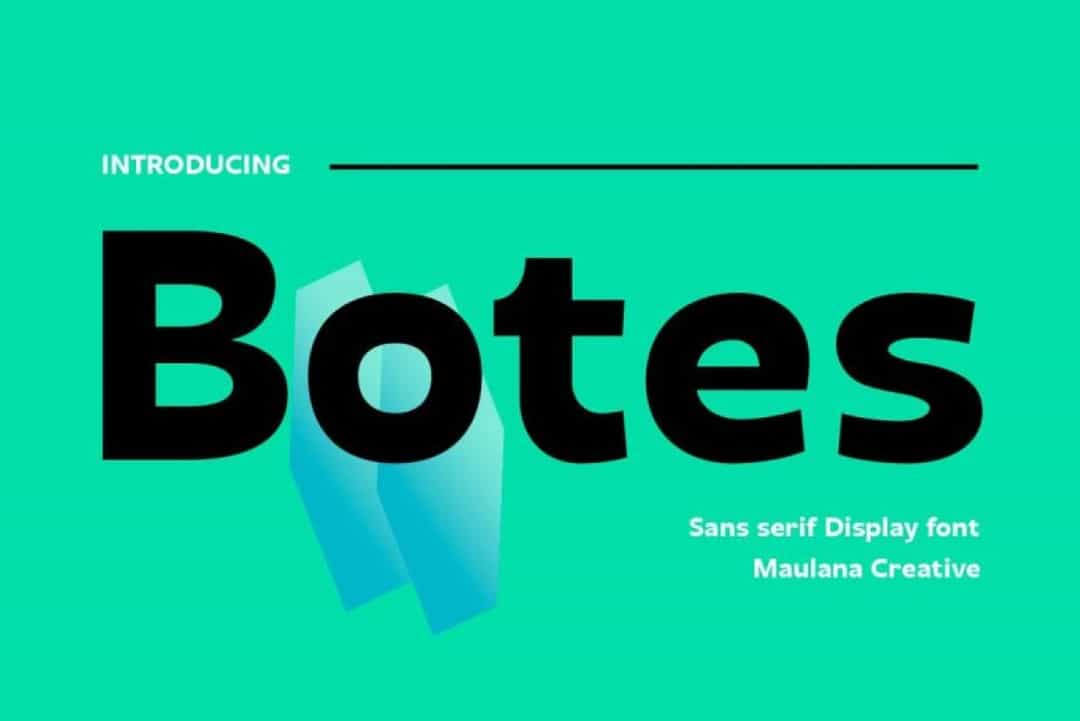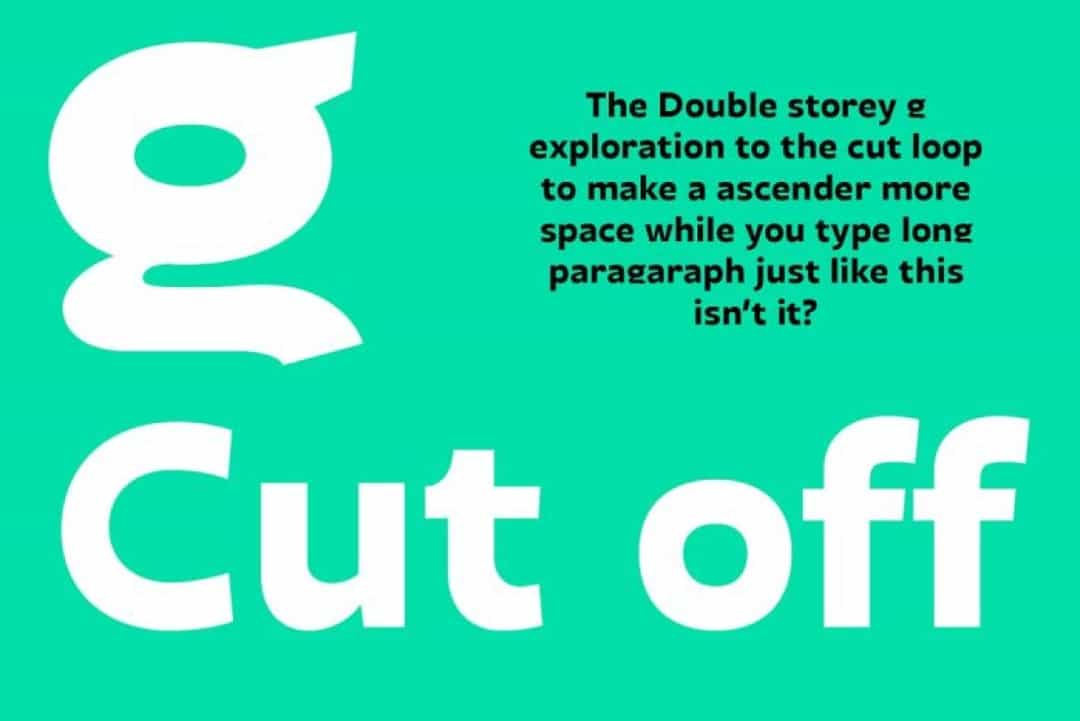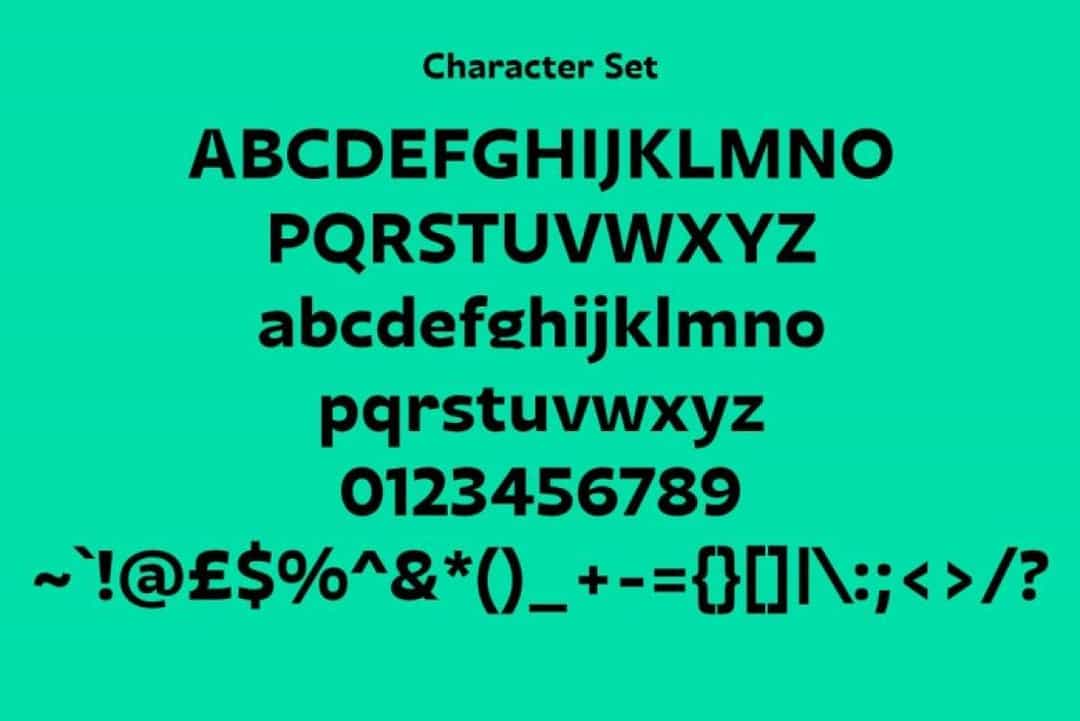
Botes font is an innovative semi-geo, humanist sans serif font with an enjoyable medium stroke and character, featuring several ligatures and alternates for extra artistic work. Botes is multilingual and supports over 100 languages.